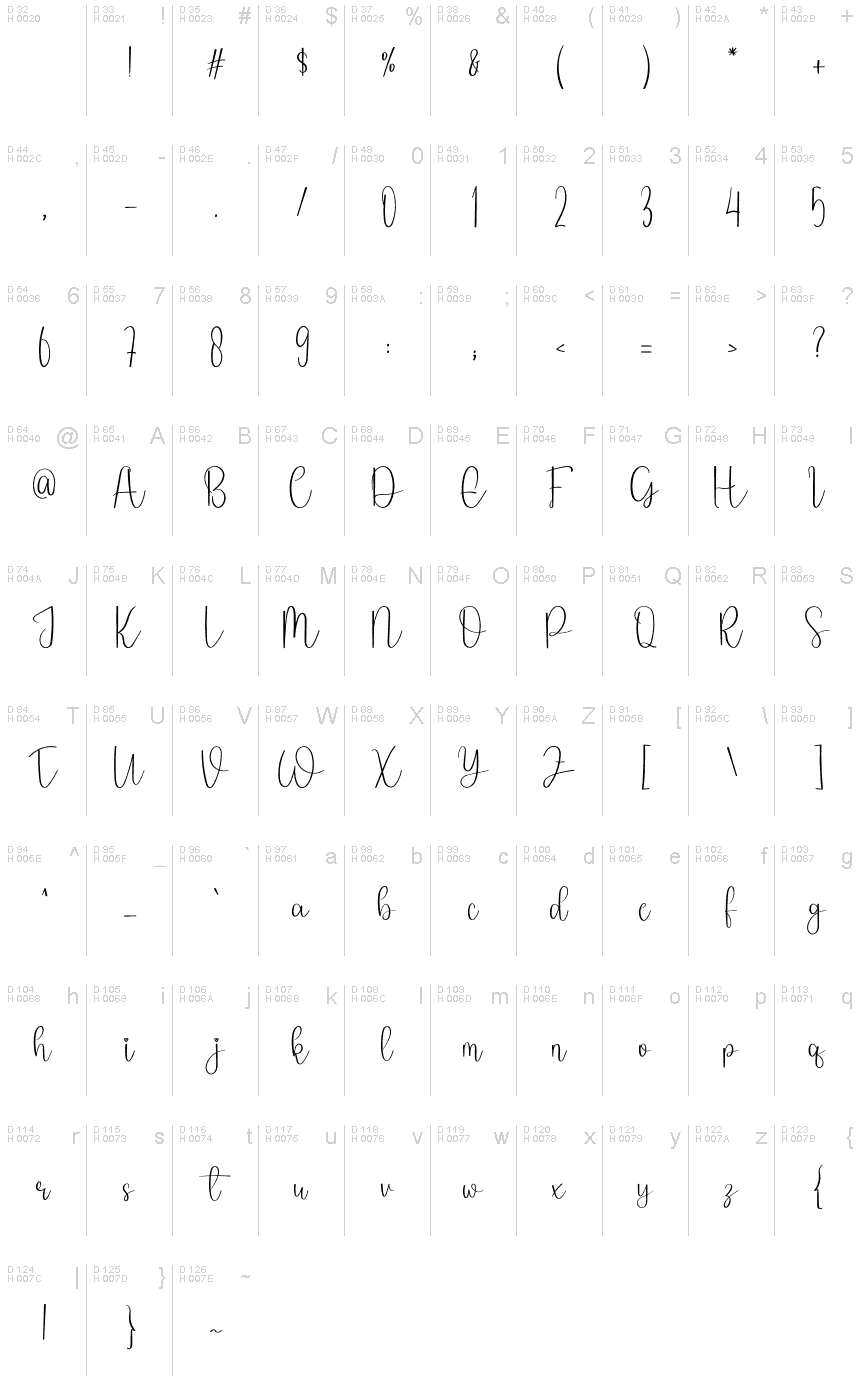
Monalisa
Monalisa is a beautiful calligraphy font designed by Inermedia Studio. Its light weight makes it great for headlines, logos, and posters. Use Monalisa to bring elegance and sophistication to your creative projects!